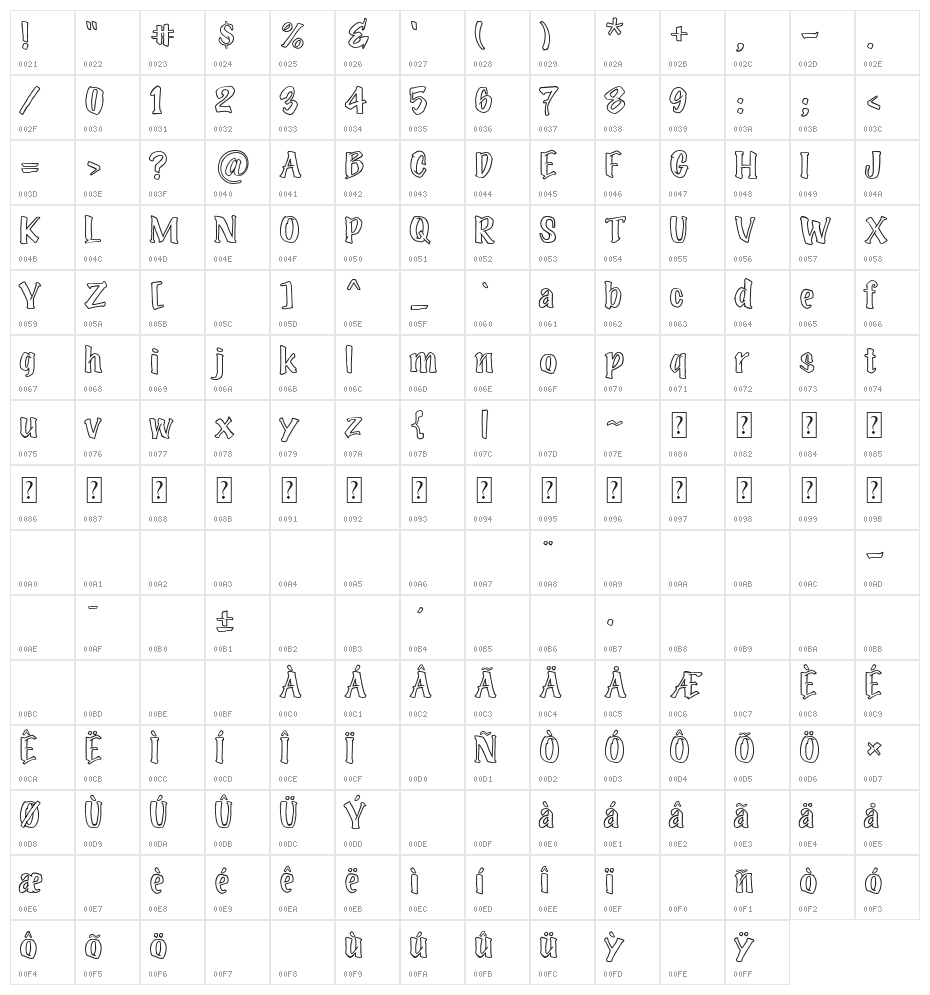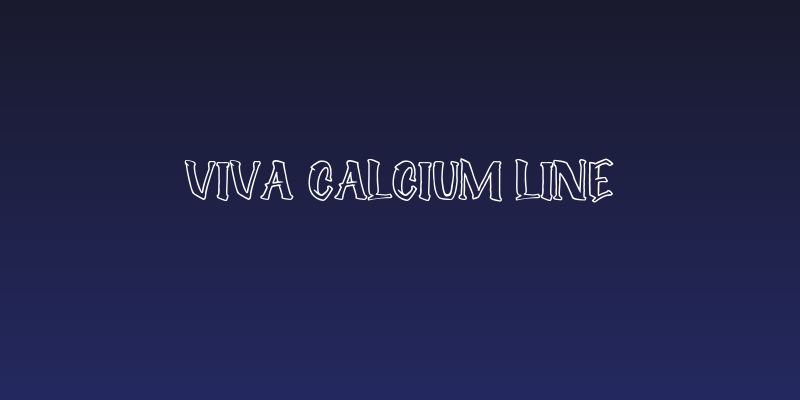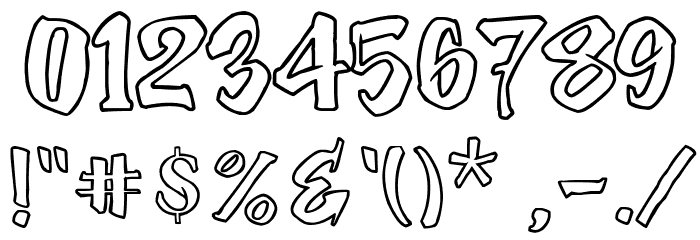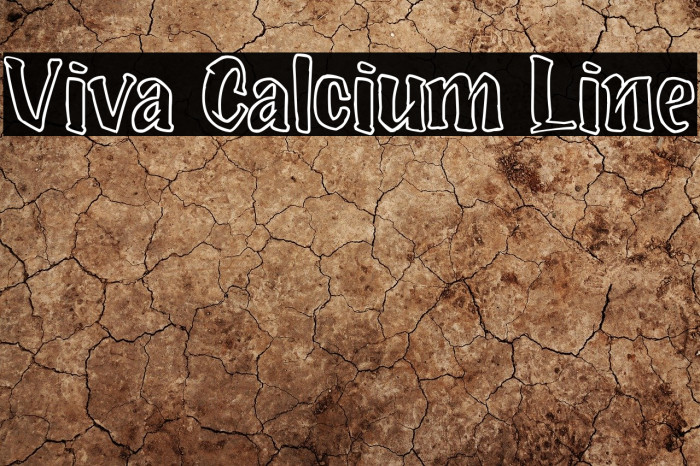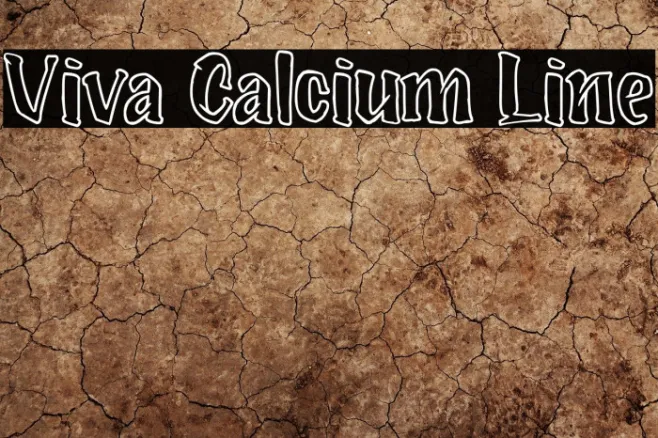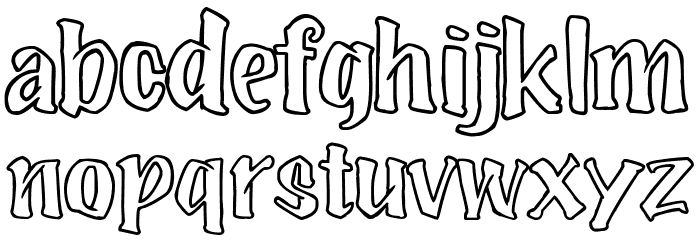
Viva Calcium Line Font
Viva Calcium Line Description
This font features a playful and dynamic style with a hand-drawn appearance. The letters have a bold outline that gives them a cartoonish and lively feel. Each character is uniquely crafted with slight variations, adding to the whimsical and informal aesthetic. The uppercase and lowercase letters maintain a consistent style, while the numerals and special characters complement the overall design. The font's irregular strokes and playful curves make it ideal for projects that require a fun and engaging look.
| Overall Style | Playful, Whimsical, Hand-drawn |
| Proposed Projects | Ideal for children's books, comic strips, playful branding, and creative posters. |